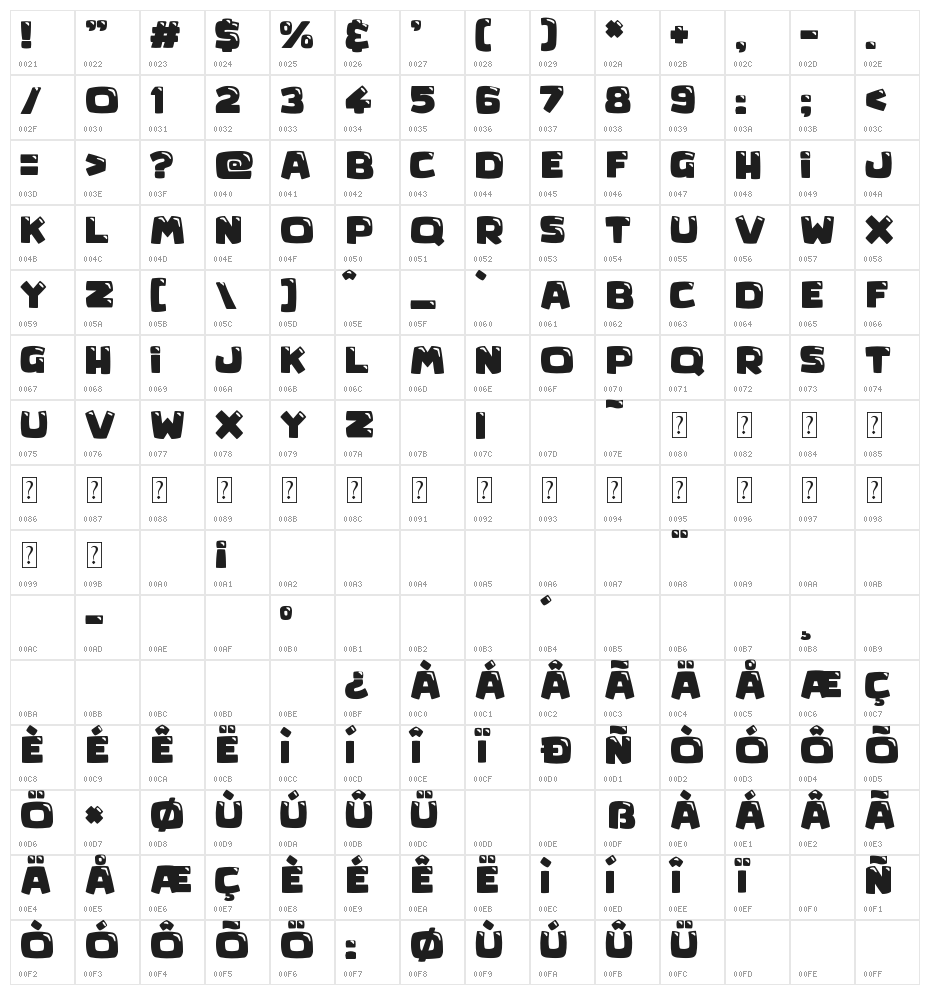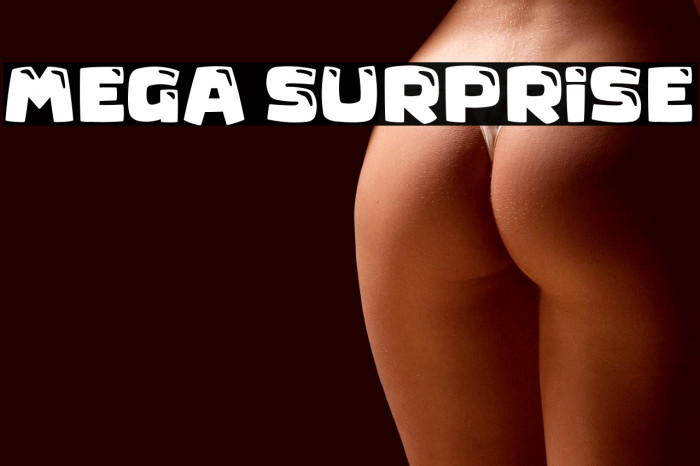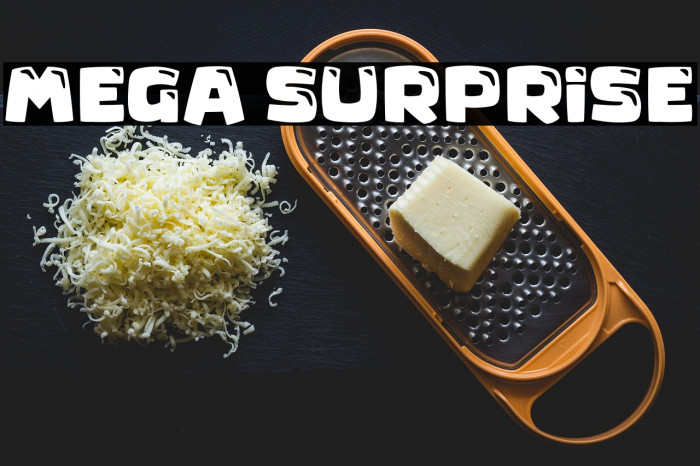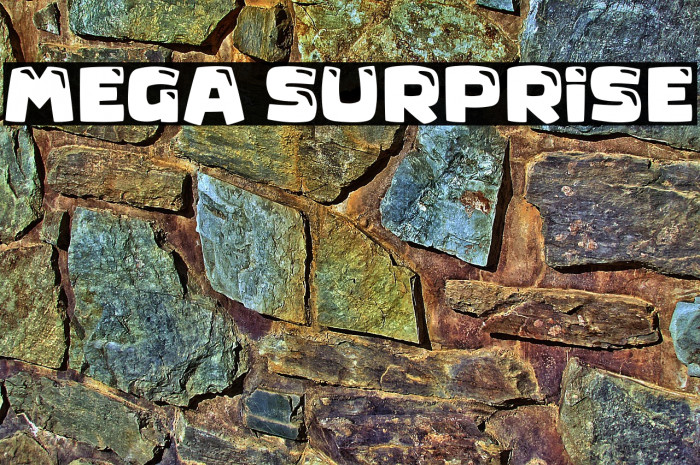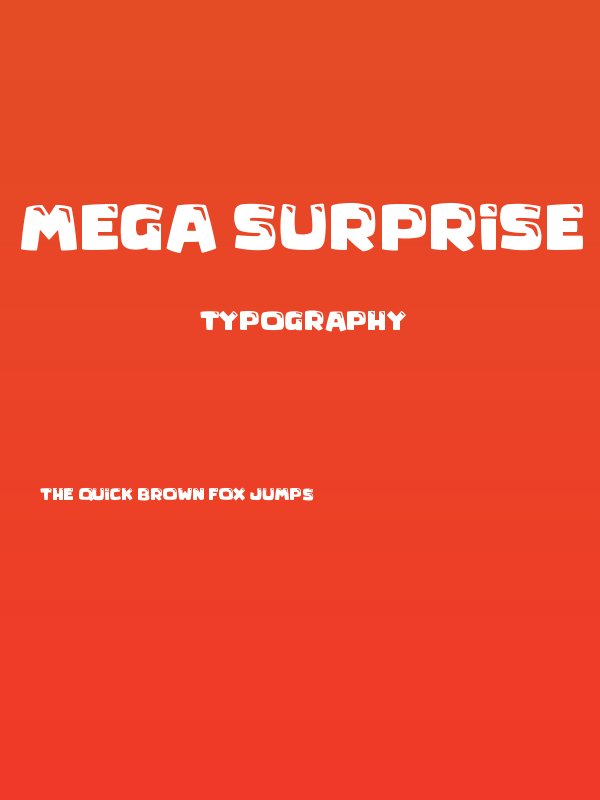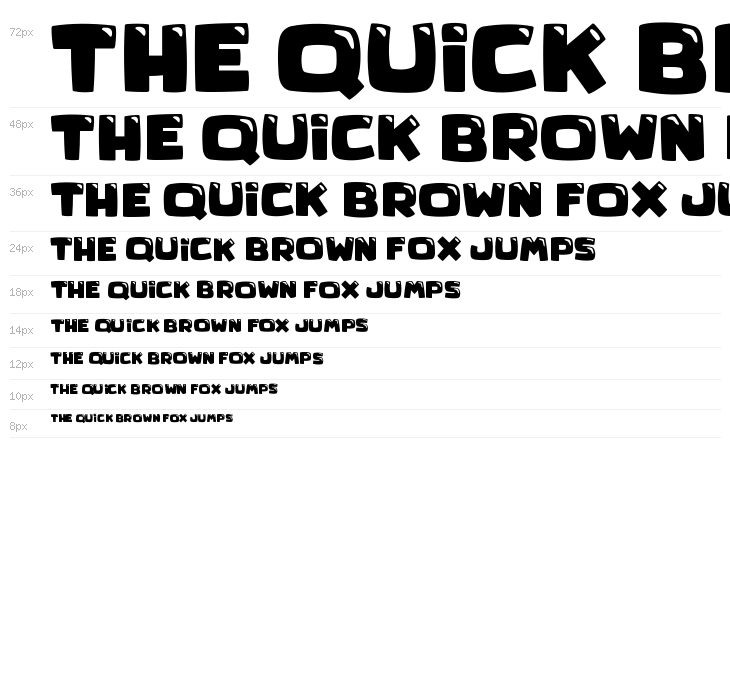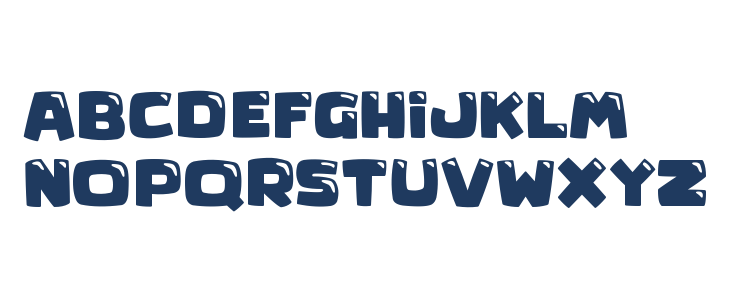
Mega Surprise Font
Mega Surprise Description
This font features a bold and playful design with a chunky, block-like appearance. The characters have a unique, slightly irregular shape, giving them a dynamic and energetic feel. The bold strokes and rounded edges contribute to its friendly and approachable look. The font maintains a consistent weight throughout, with medium contrast between the thick and thin strokes. Its distinctive style makes it stand out, making it ideal for attention-grabbing headlines or creative projects. The spacing between characters is normal, ensuring readability while maintaining its bold presence.
| Overall Style | Playful, Energetic |
| Proposed Projects | Ideal for children's books, playful branding, posters, and creative advertising campaigns. |